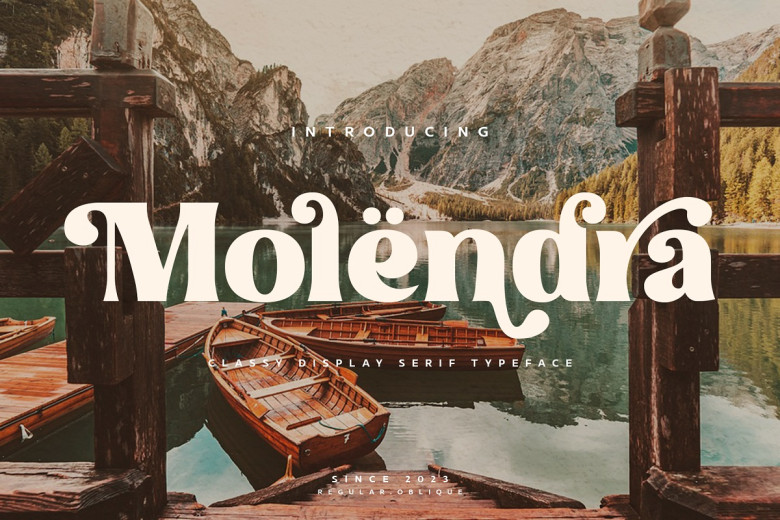
Molendra Font
Molendra is classy display serif font, contains over 270 characters that span uppercase and lowercase letters, multilingual characters, alternates and the most commonly used characters. Molendra makes for the ideal font choice when creating logos, social posts, product packaging designs or any other project where a unique font style is desired.
Molendra Serif Font